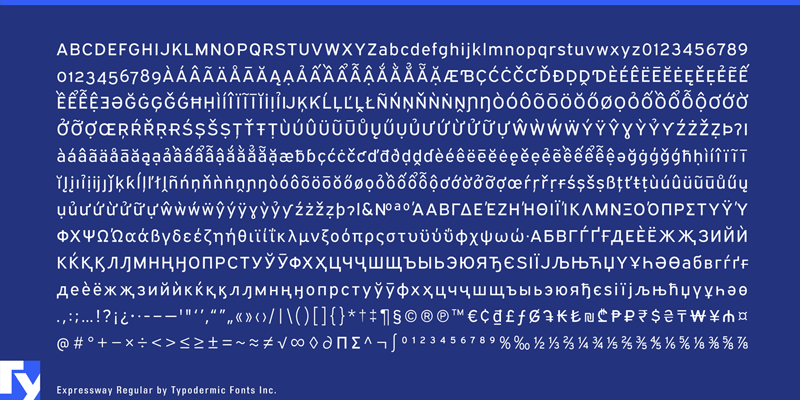
Font name: | Expressway |
Expressway is a sans-serif font family inspired by the U.S. Department of Transportation’s FHWA Series of Standard Alphabets, also known as Highway Gothic. Since the middle of the twentieth Century, it’s the font most used on road signs in the United States, Canada, Mexico, Australia, Turkey, Spain, Venezuela, the Netherlands, Brazil, Argentina, Taiwan, Malaysia, Indonesia, India, Mongolia and New Zealand. Rather than rigidly following government specs, Expressway is a more practical design that still holds on to that road sign feeling. The full family has 7 weights, 2 widths plus italics for a total of 28 styles. In OpenType savvy applications, you can access old-style (lowercase) numerals as well as monospaced numerals. Currency symbols, mathematical symbols and fractions are monospaced, making it easy to set up price lists and other tabular numeric data. Almost all current Latin based languages are supported, including Cyrillic languages, Greek and Pan Nigerian. This font includes a license that allows free commercial use: sometimes referred to as a desktop license. This allows you to install the font on a computer and use it to create posters, web graphics, game graphics, t-shirts, videos, signs, logos and more. Read the license agreement for details. If you'd like to embed this font in an app, ebook, on the web or anything that's not covered by the desktop license agreement, visit the link below. You'll find distributors who offer different types of licenses or you can contact me for help. http://typodermicfonts.com/expressway/ This free font is part of a larger font family. Check out the rest of the family through the link above. |